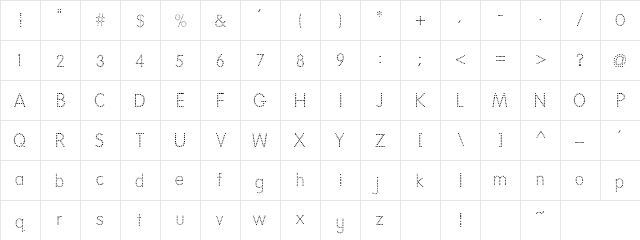
First Font Regular
Design Context for First Font Typeface
First Font takes a measured approach to typography — its balanced proportions and neutral character make it a reliable workhorse for both digital and print work.